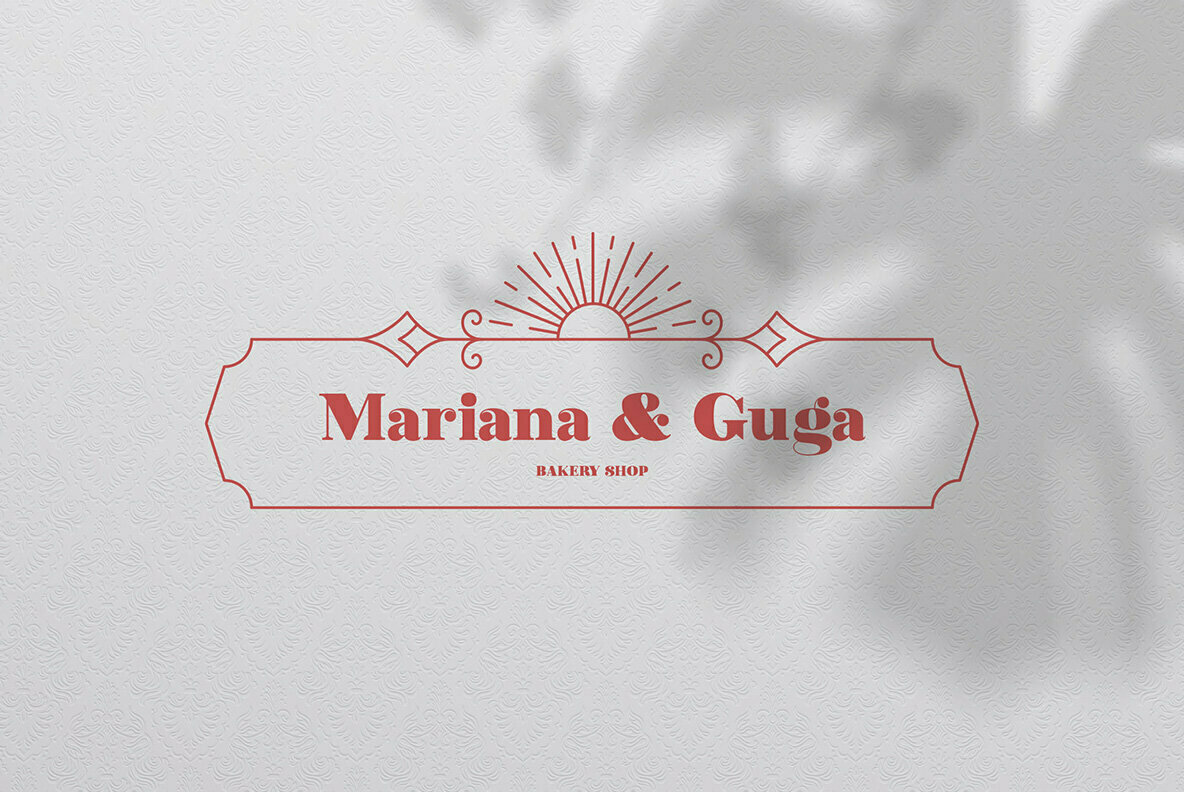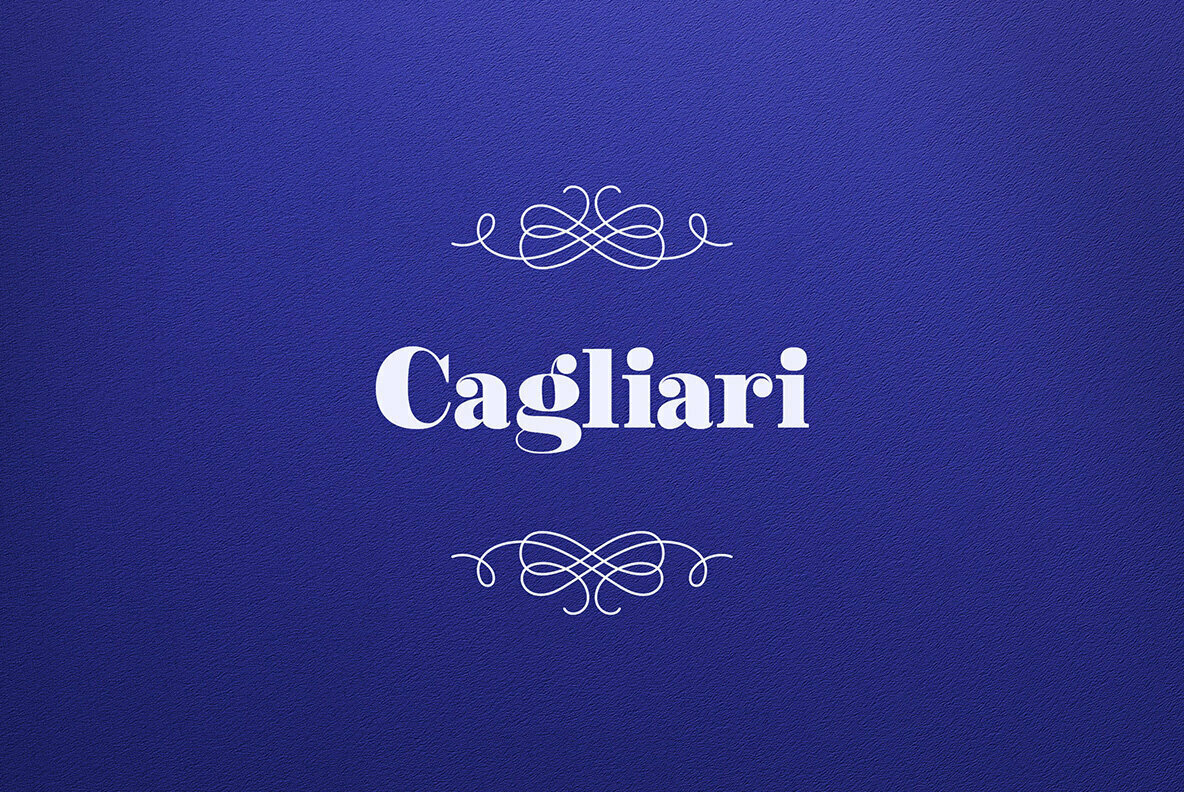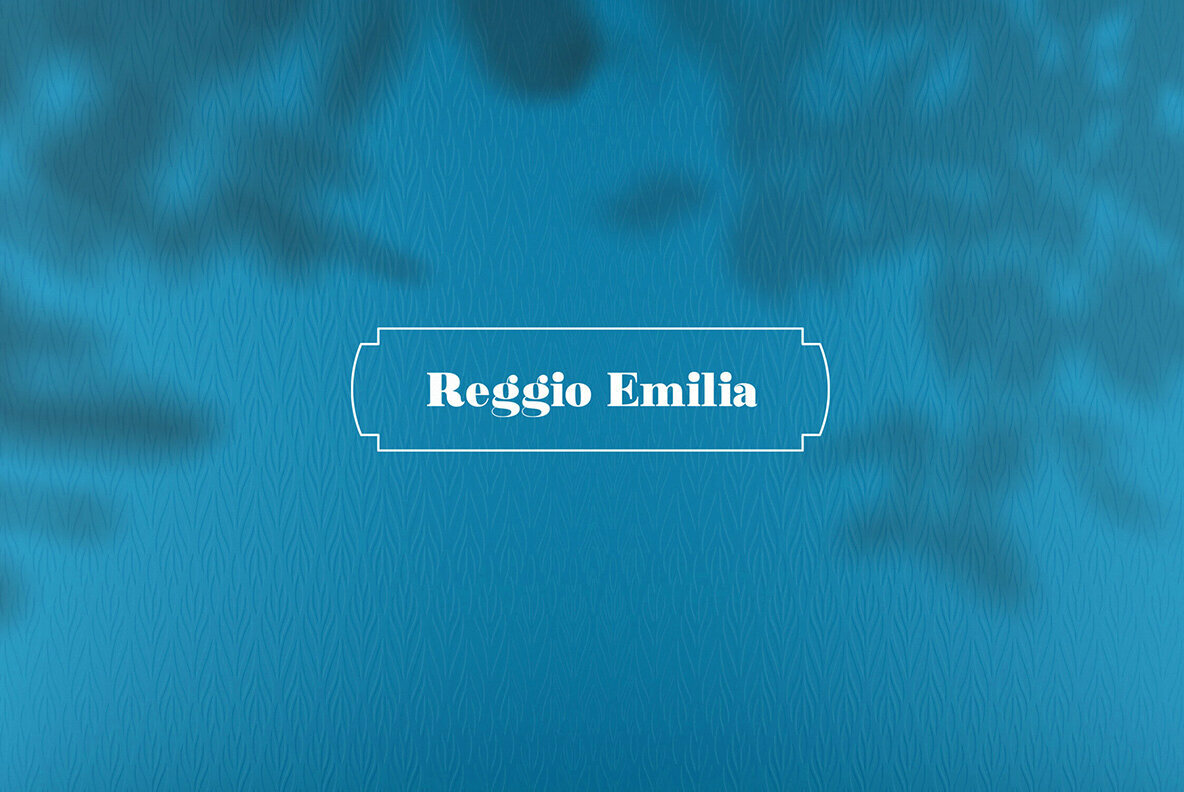
Perugia Font
Perugia is a striking display serif font that combines boldness with grace. Its curvaceous form offers a distinctive presence, making it an ideal choice for projects requiring an expressive typographic style. Whether you are designing for print or digital, Perugia stands out with elegance.Perugia: Bold and Curvy Display Serif